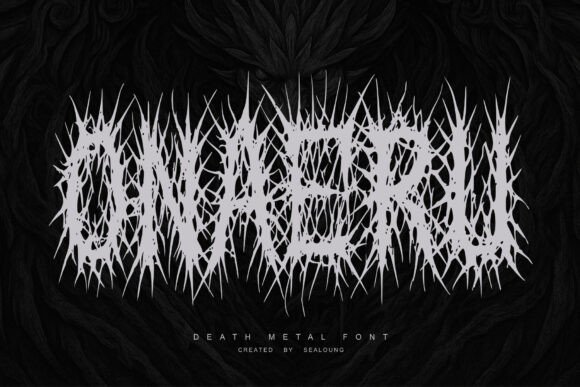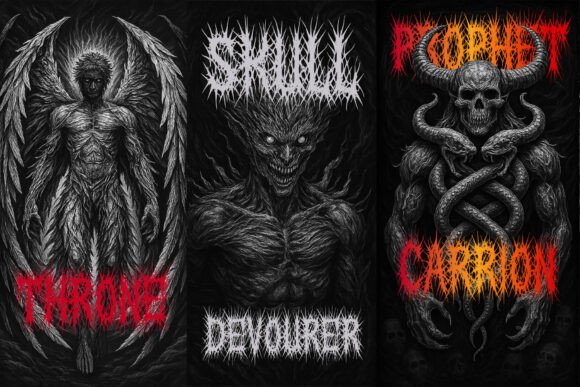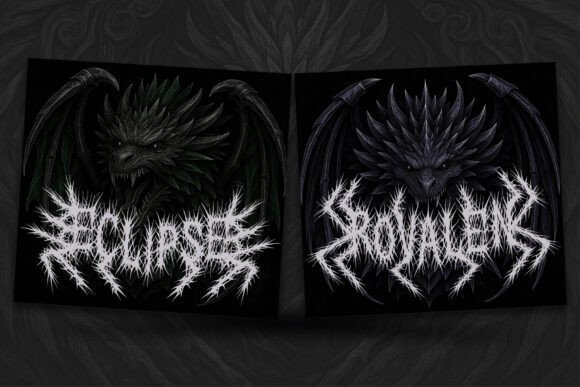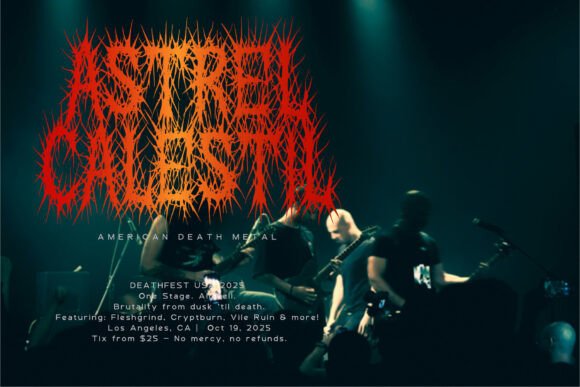
Onaeru Font: Unleash the Darkness with this Metal Band Logo Design!
About the Onaeru Font
Meet Onaeru Font, a stunning font that brings a touch of elegance and professionalism to any design. Onaeru Font is a fierce and heavy typeface crafted for creating impactful logos, especially for underground bands and extreme music scenes. Its sharp, aggressive letterforms give your designs a raw, intense atmosphere suitable for genres like death metal and black metal. It comes with a complete uppercase character set, alternates, along with numbers and punctuation to support a wide range of uses.
Onaeru’s aggressive forms make it ideal for impactful logos, posters, and short headlines where a raw, intense aesthetic is desired. It excels in creating a strong visual identity for brands within the music, fashion, or gaming industries that project rebellion and power. However, its heavy weight and sharp serifs make it unsuitable for body text or UI elements; readability suffers at smaller sizes.
Pairing Onaeru with a clean, geometric sans-serif like Futura or a more neutral serif like Garamond provides a strong contrast. This balances its aggressive energy and improves legibility when used in supporting text. A script font with a similar intensity, but with flowing forms, could also create an interesting contrast. For example, a slightly distressed script could emphasize the gritty feel of Onaeru while adding a touch of personality.
The overall personality of Onaeru is bold, aggressive, and rebellious. Its design evokes a sense of raw energy and intensity, making it a powerful choice for conveying a strong, uncompromising brand message.
Onaeru Font Usage Examples
Onaeru Font Example